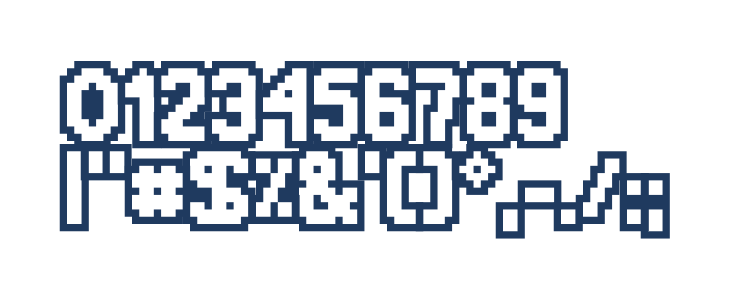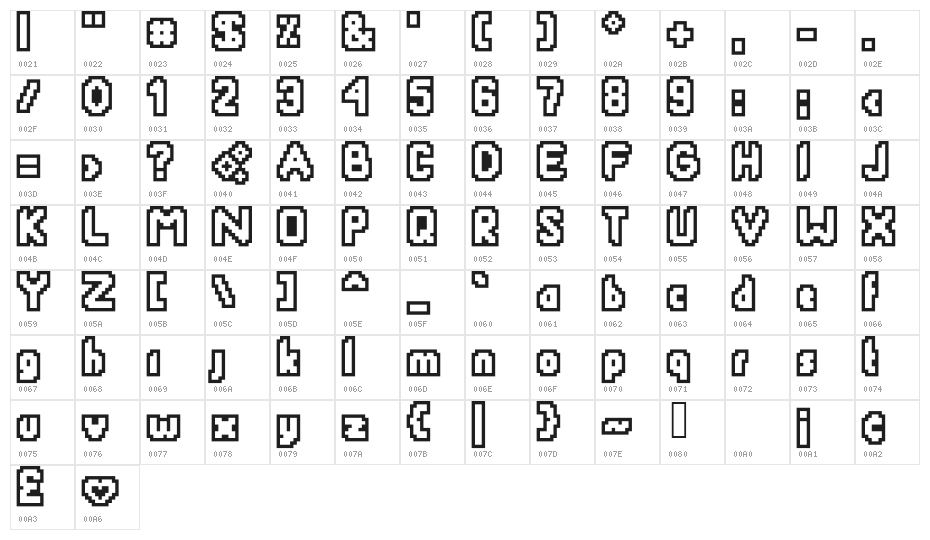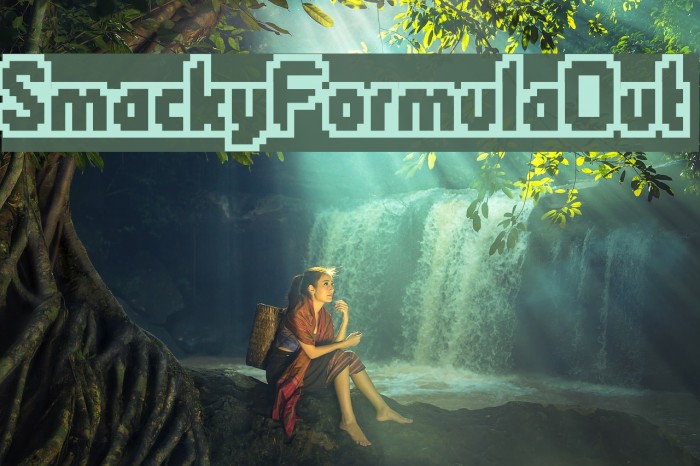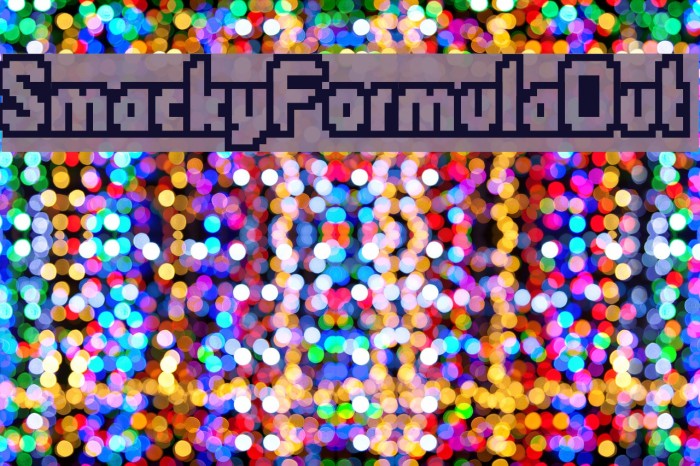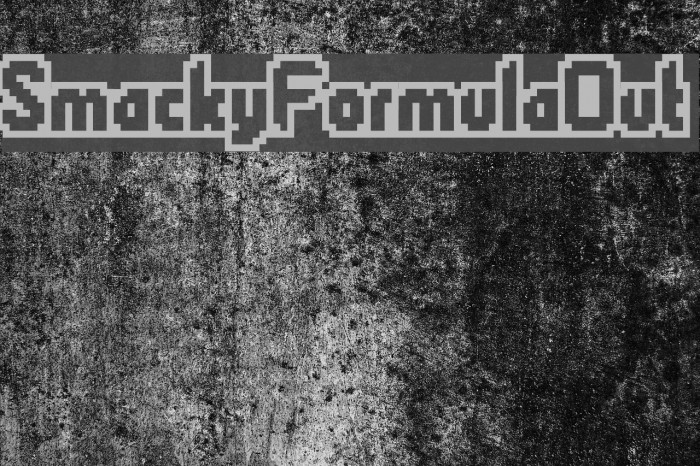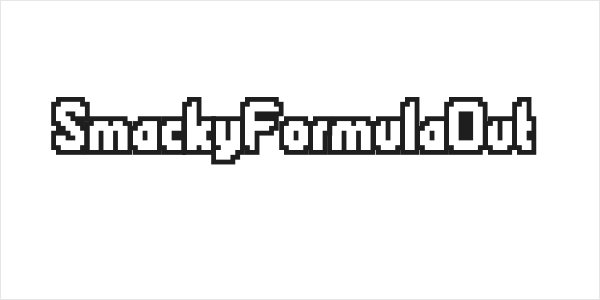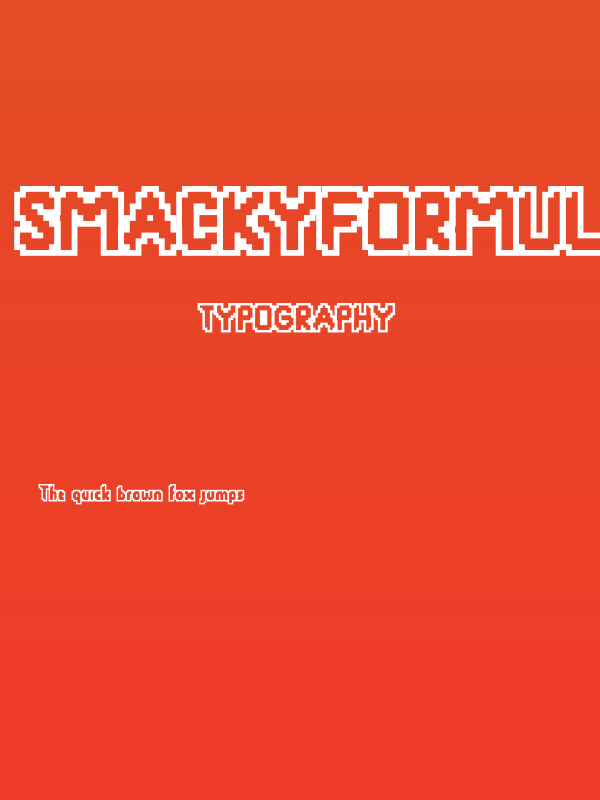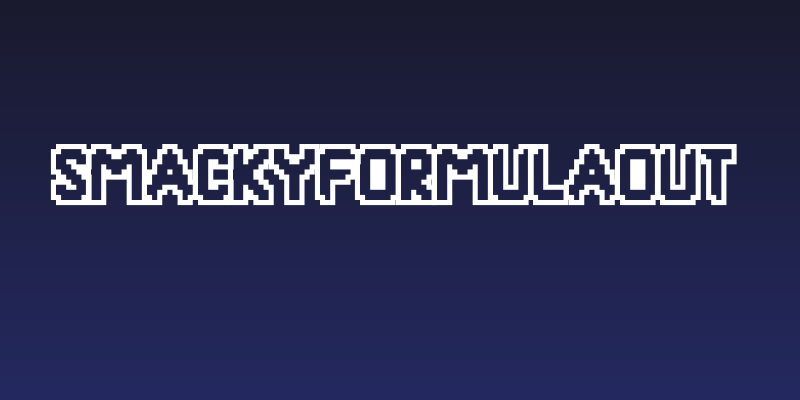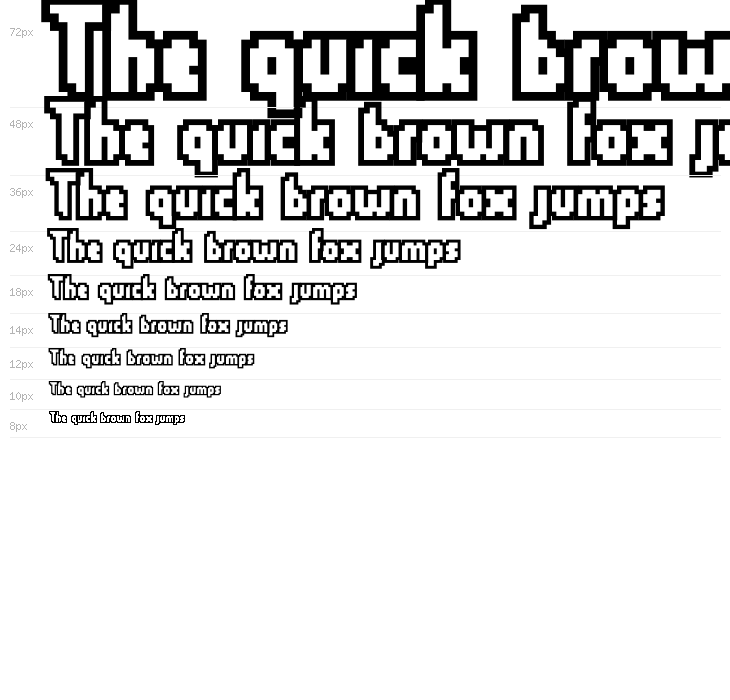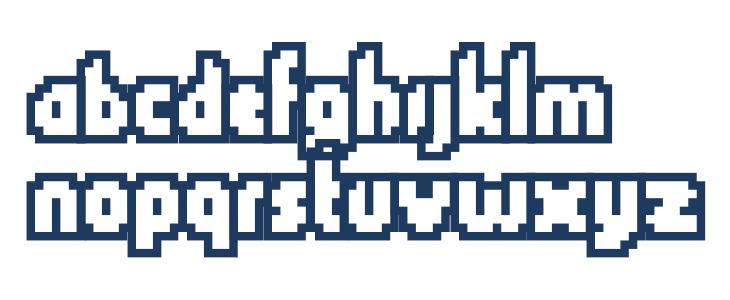
SmackyFormulaOut Font
SmackyFormulaOut Description
This font features a bold, pixelated style reminiscent of classic video game graphics. Each character is constructed with a blocky, geometric design, giving it a retro and playful appearance. The uppercase and lowercase letters maintain a consistent width, enhancing the uniformity of the font. Numbers and special characters are designed with the same pixelated aesthetic, ensuring a cohesive look across all elements. The font's distinct style makes it ideal for projects that aim to evoke nostalgia or a digital theme.
| Overall Style | Retro, Playful |
| Use Case | Logos, Posters, Digital Art |
| Proposed Projects | Perfect for video game designs, retro-themed posters, digital art projects, and playful branding. |